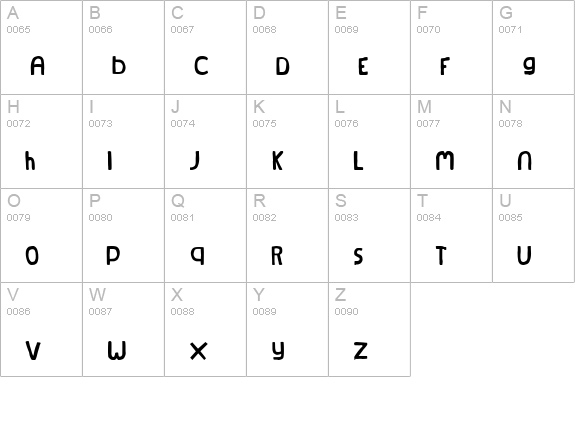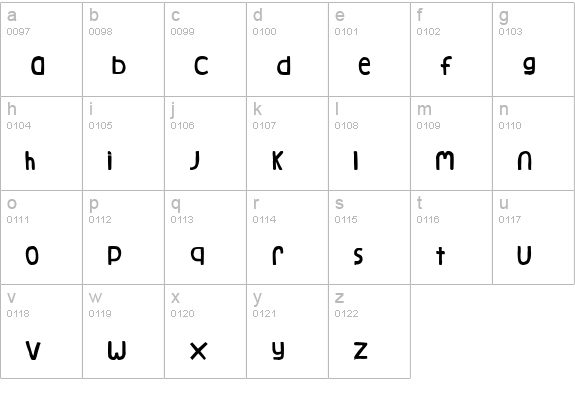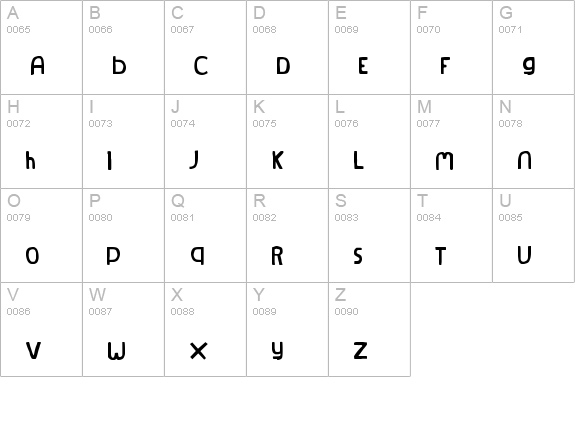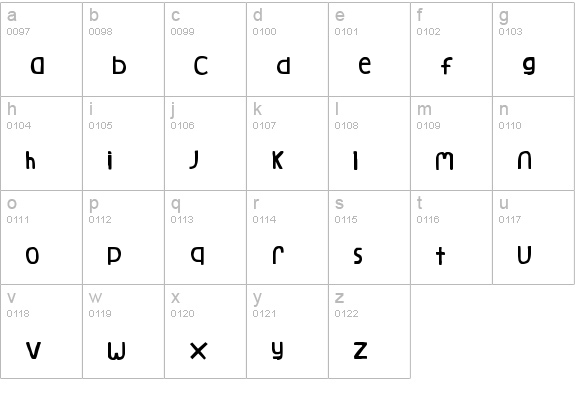
Natural Log Font Details
Natural Log font is a charming and elegant typeface that exudes a sense of sophistication and creativity. With its flowing lines and organic shapes, this font is perfect for adding a touch of nature-inspired beauty to your designs. Whether you're working on a branding project, a website design, or a creative poster, Natural Log font will bring a unique and enchanting quality to your work. Best of all, Natural Log font is completely free to download at FontsMarket.com. This means you can easily access this stunning typeface and incorporate it into your projects without any cost. Don't miss out on the opportunity to enhance your designs with the beauty and grace of Natural Log font - download it today and let your creativity flourish!